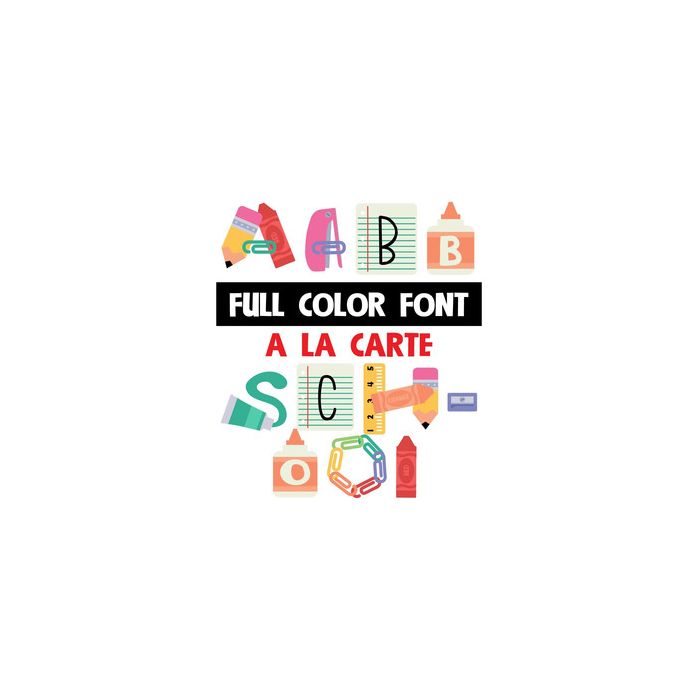
This full-color font is made up of illustrated school supplies. This font works best for titles, displays, posters and more. Please note color fonts will show as black in non compatible programs. This font type is compatible with Silhouette Studio.